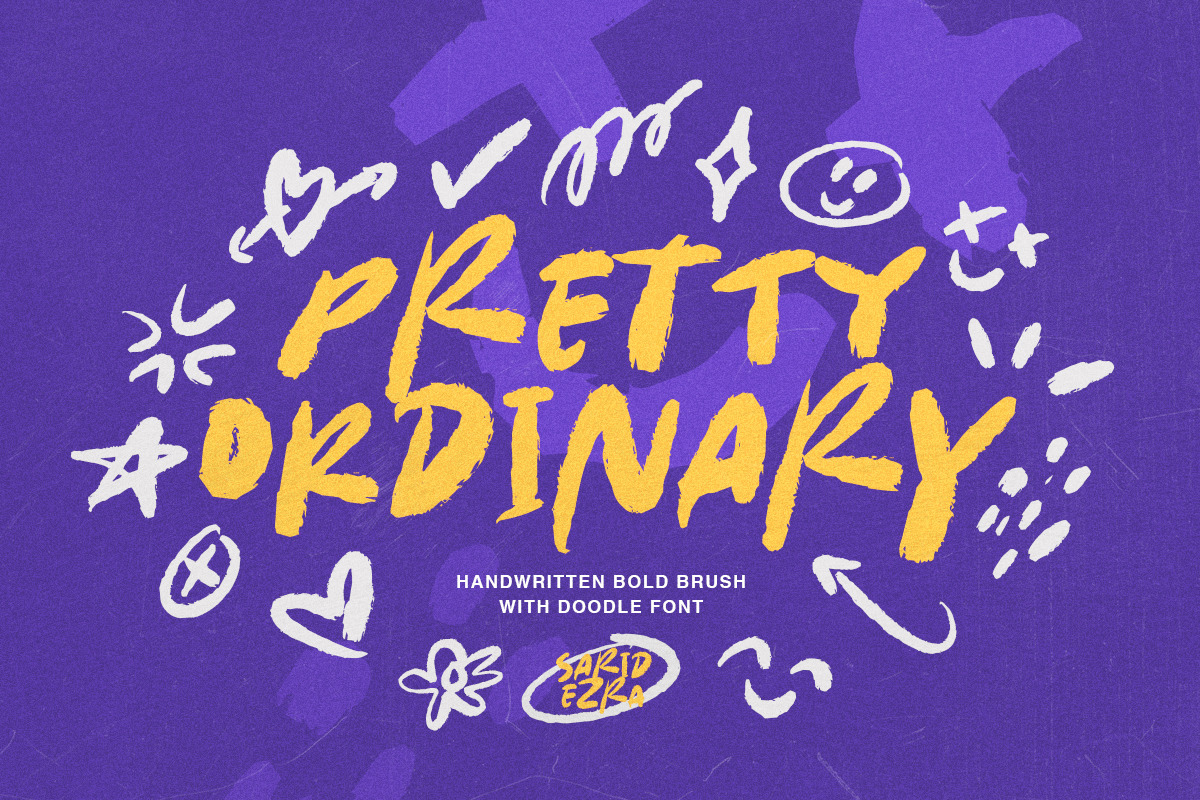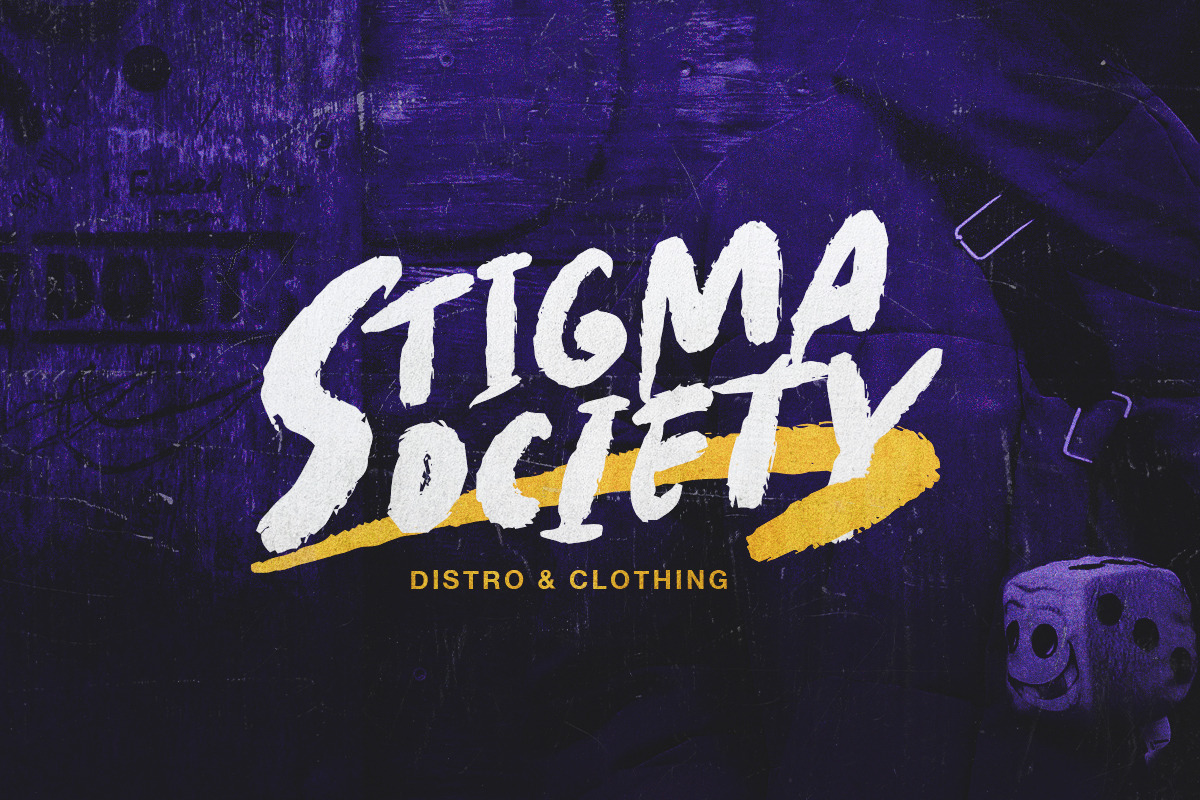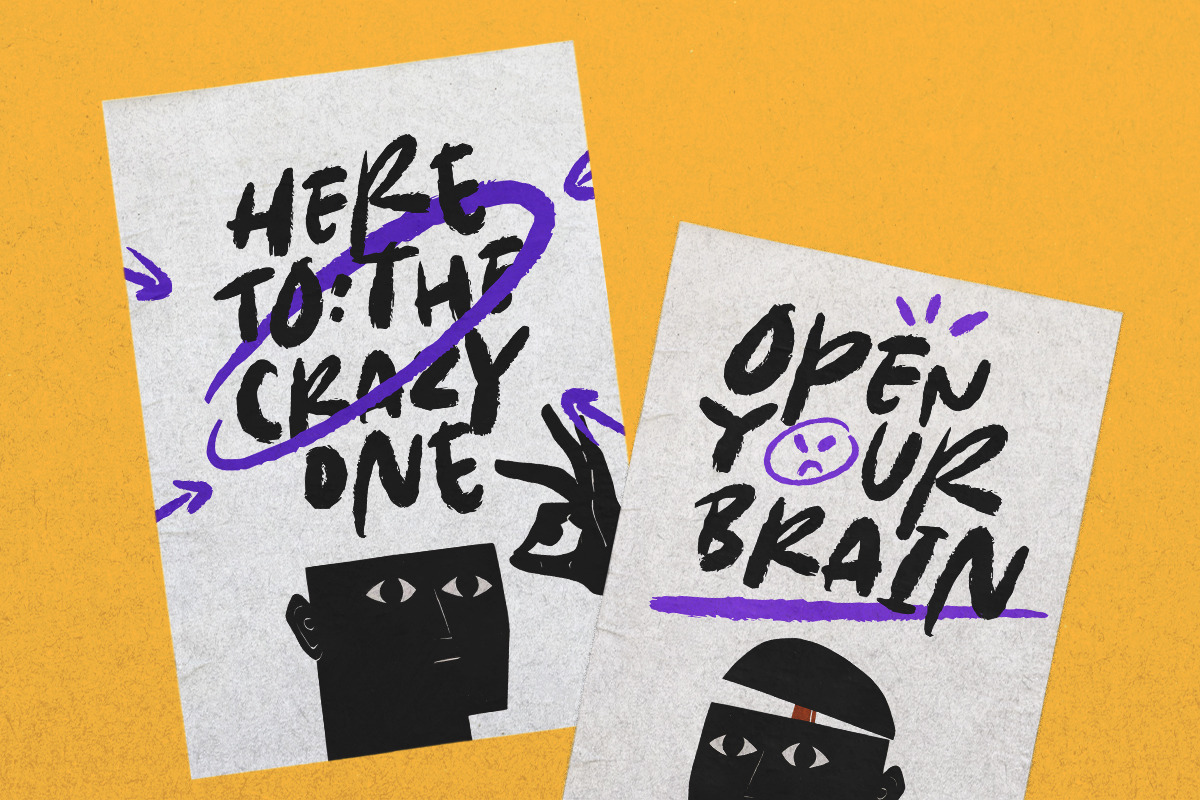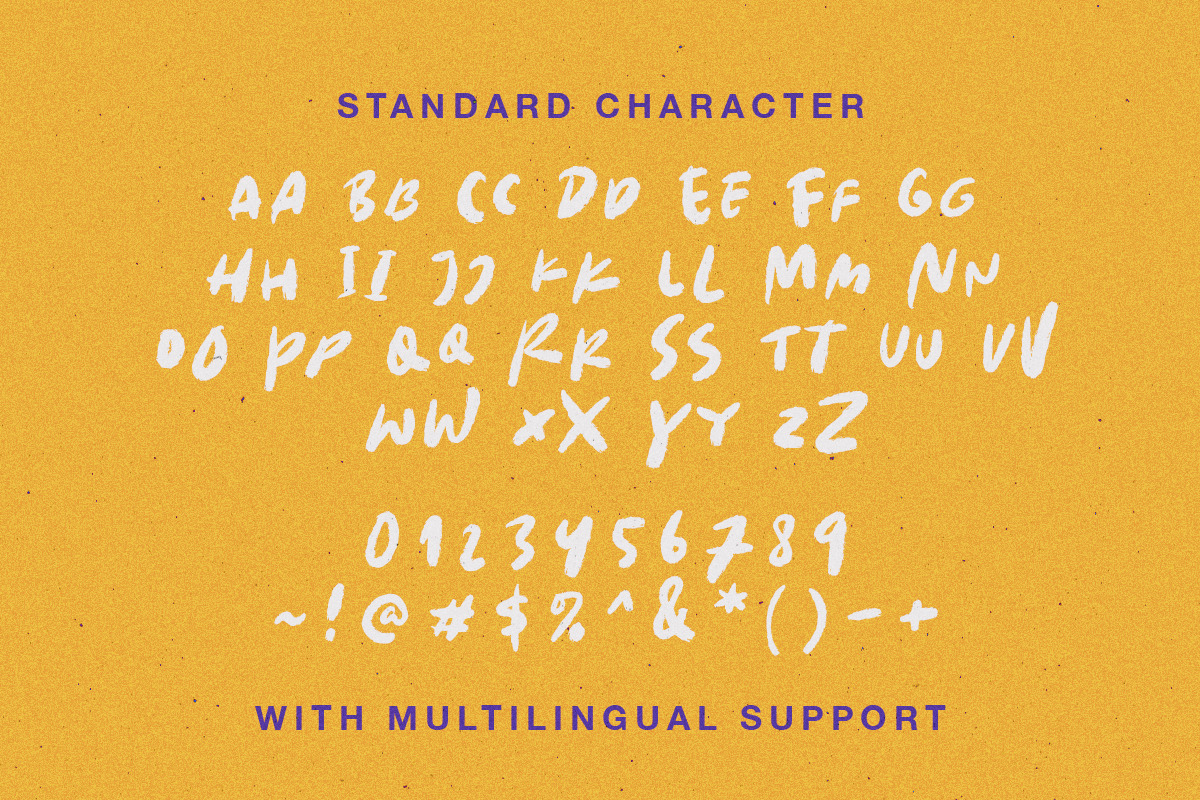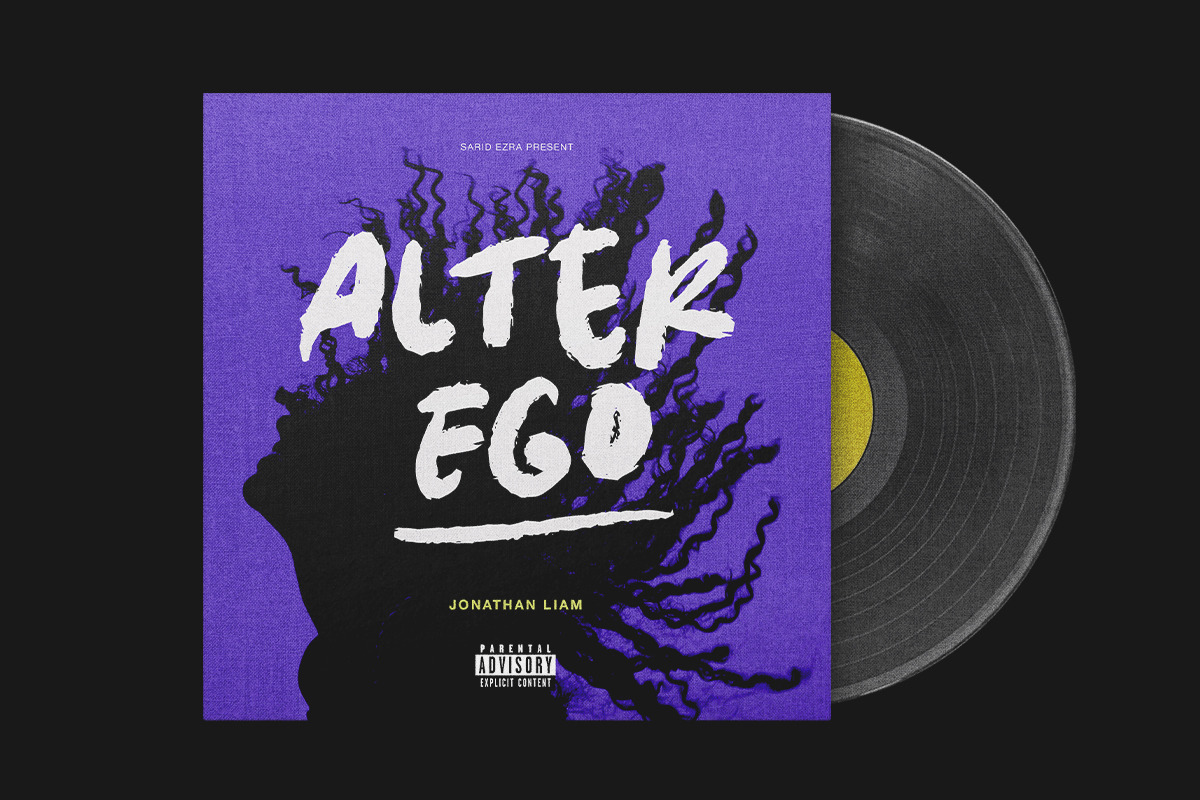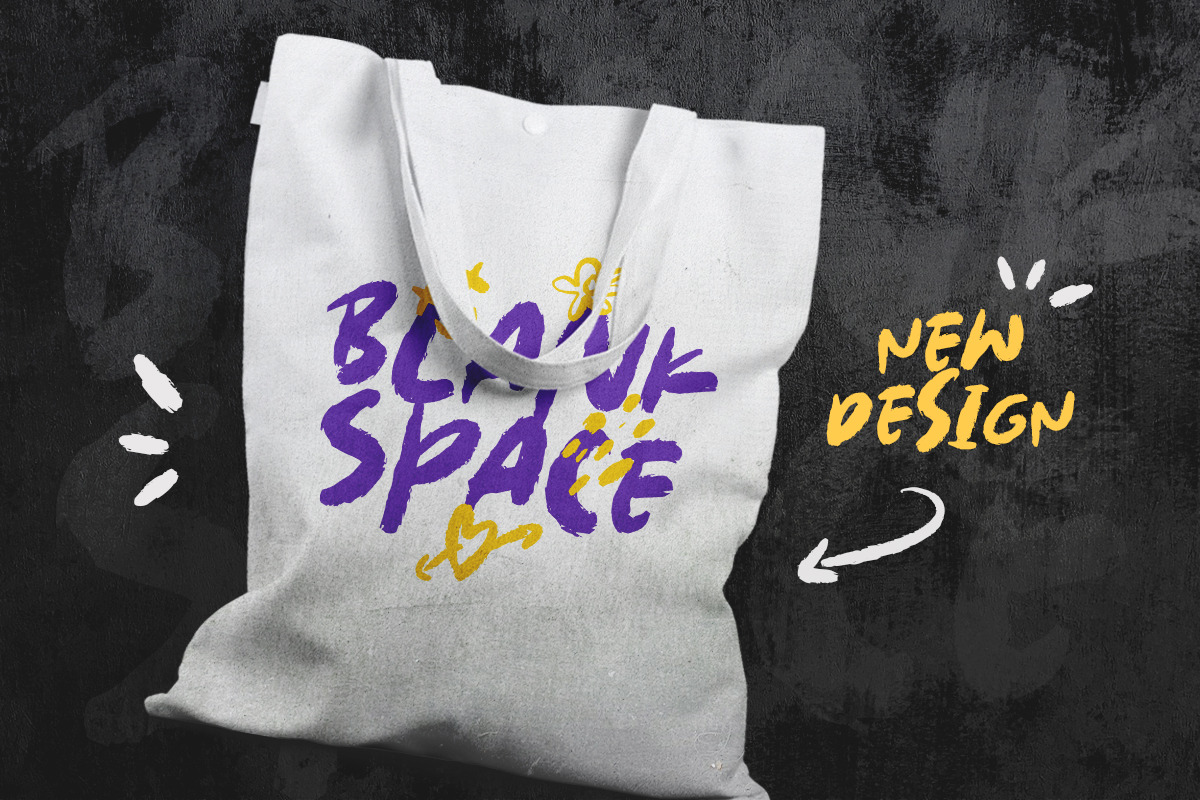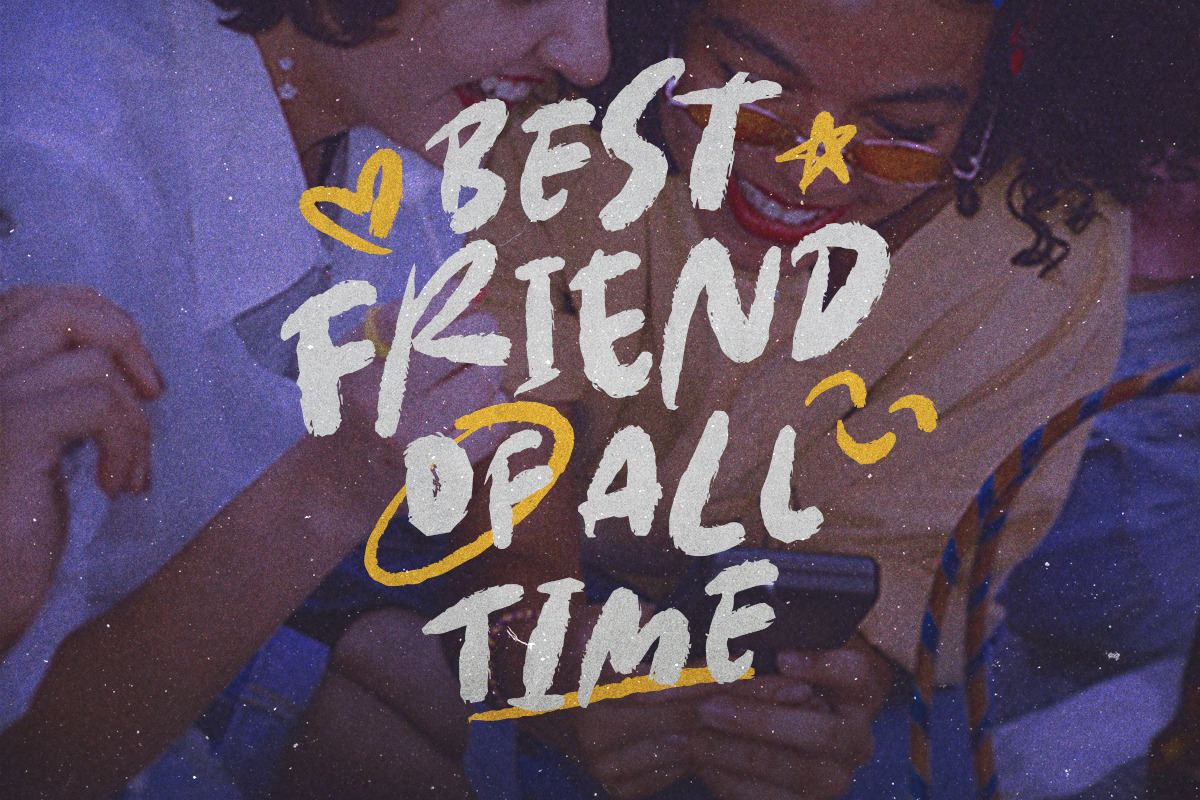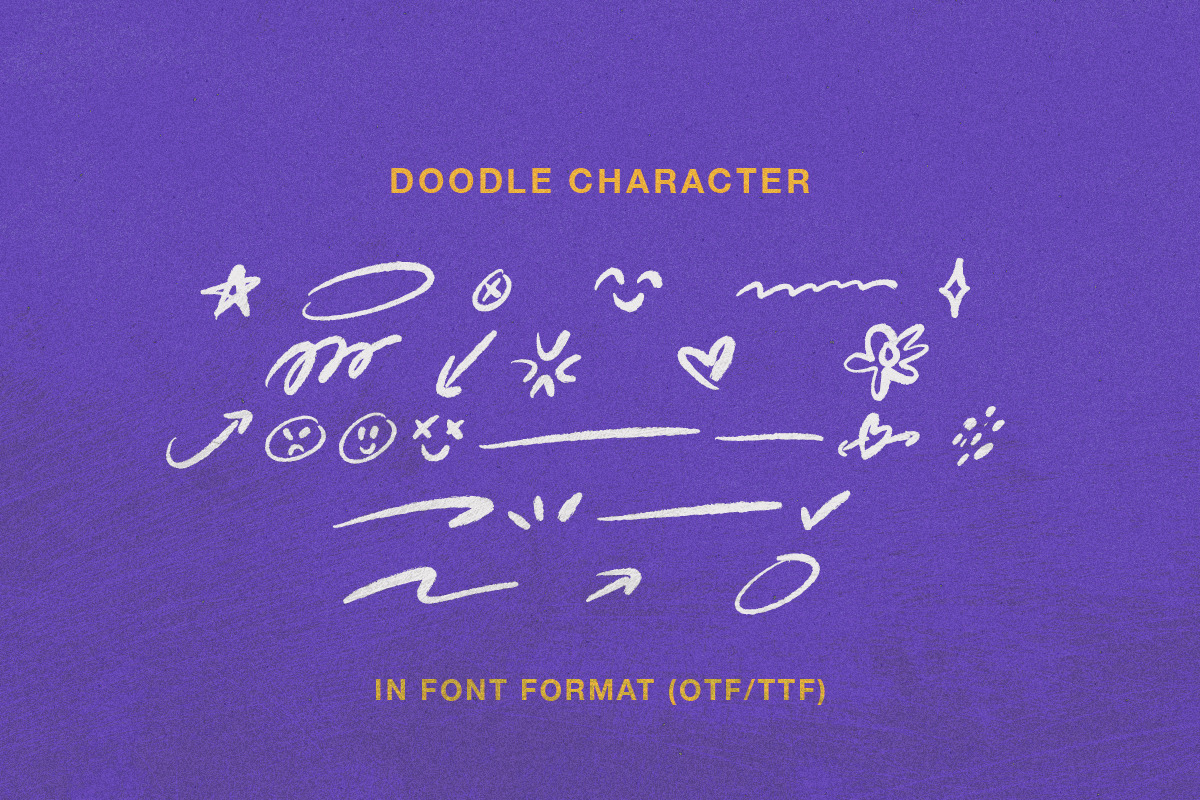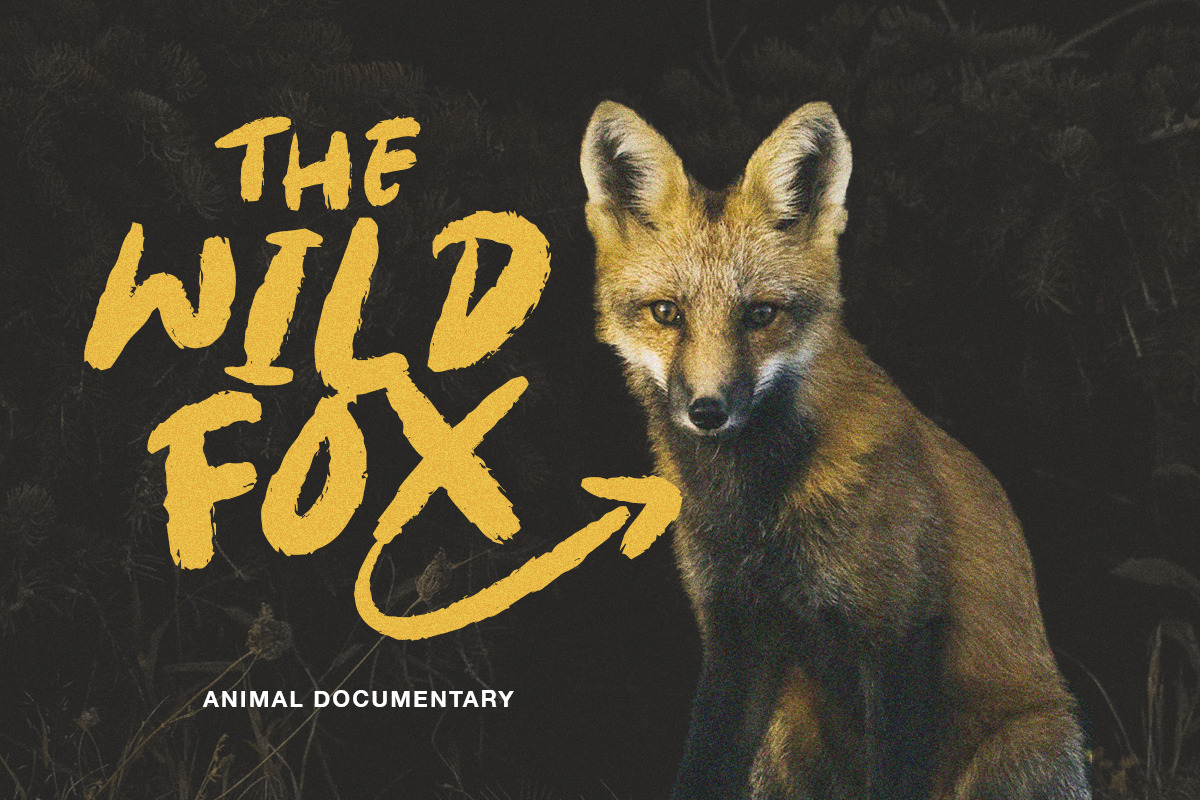
Pretty Ordinary - Bold Font + Doodle
Introducing, Pretty Ordinary, bold handwritten font with doodles!
Pretty Ordinary is a brush font with bold and quirky looks. Comes with doodles in font format that will complete and compliment your projects. You can use this fonts for any project such as banding, street art, quotes, and tagline. You can access the doodle just type A-Z a-z, don't forget to select the font "Pretty Ordinary Doodle" before. This font also support Multi Language!